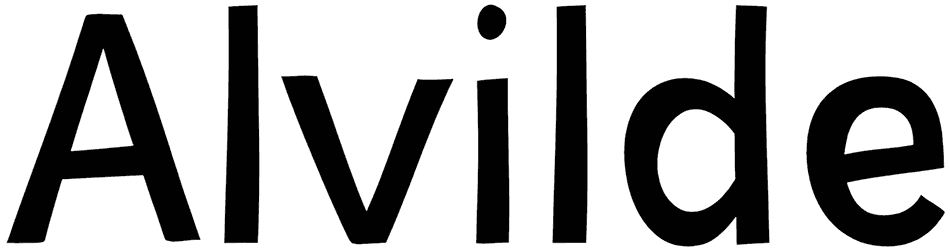
Alvilde Font
You may see Alvilde and think to yourself, “What’s so special about this sans-serif font?” To answer that question, you should first see it in an art studio business card, a biography book cover, or some other modern project, and you’ll know it instantly.
Plus, if you look closely enough, you should be able to notice a subtle hint of playfulness in their child-like letters, so neatly captured. Once you see it, it’ll be so hard to unsee it.
Alvilde is a unique sans serif font that is perfect for those looking to add a touch of whimsy to their design projects. This font is perfect for creatives who want to add a playful and imaginative touch to their work.